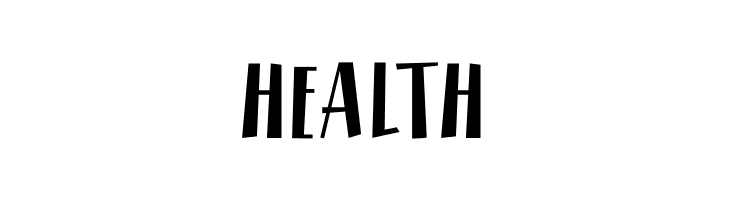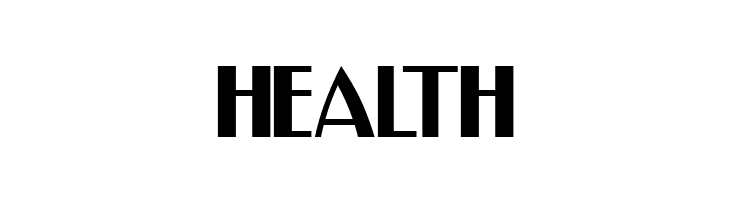
A whimsical font with characters encased in clown faces, ideal for playful designs.
A classic serif font with elegant, sharp serifs and refined proportions.
A bold, geometric font with sharp angles and smooth curves, ideal for modern designs.
A bold, decorative font with a double-line outline and geometric structure.
A bold, slab serif font with a vintage Western style.
A modern, condensed sans-serif font with tall, narrow characters and uniform stroke width.